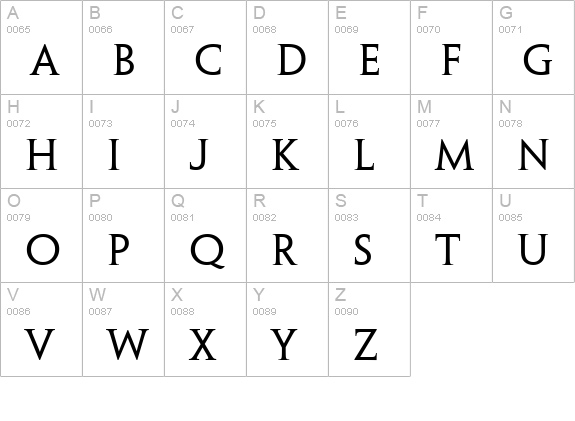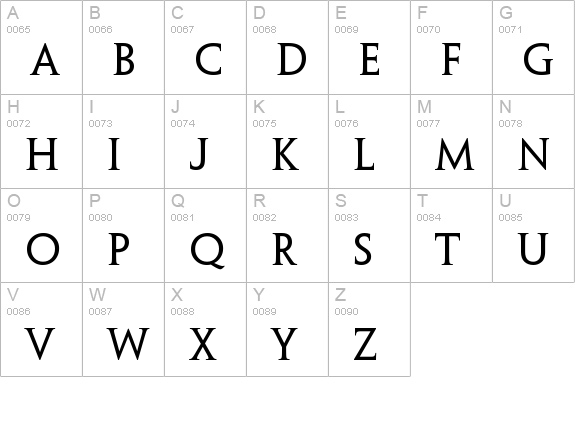
Penumbra Web Pro Serif Font Details
Penumbra Web Pro Serif is a stunning font that exudes elegance and sophistication. Its timeless design is perfect for any project that requires a touch of class. Whether you are designing a website, creating a logo, or crafting a print advertisement, this font will add a touch of professionalism to your work. With its clean lines and graceful curves, Penumbra Web Pro Serif is a versatile font that can be used in a variety of design contexts. Its legibility makes it ideal for body text, while its bold presence makes it a great choice for headlines and titles. The attention to detail in this font is truly remarkable, with each character meticulously crafted to perfection. One of the standout features of Penumbra Web Pro Serif is that it is free. Yes, you read that right! This incredible font is freely available to download at FontsMarket.com. Now, you can enhance your design projects without worrying about breaking the bank. With Penumbra Web Pro Serif, you can add a touch of sophistication and style to your work, all at no cost. So why wait? Head over to FontsMarket.com now and download Penumbra Web Pro Serif. Take advantage of this amazing opportunity to elevate your designs with a font that is not only visually stunning but also absolutely free. Don't miss out on the chance to make a lasting impression with Penumbra Web Pro Serif.